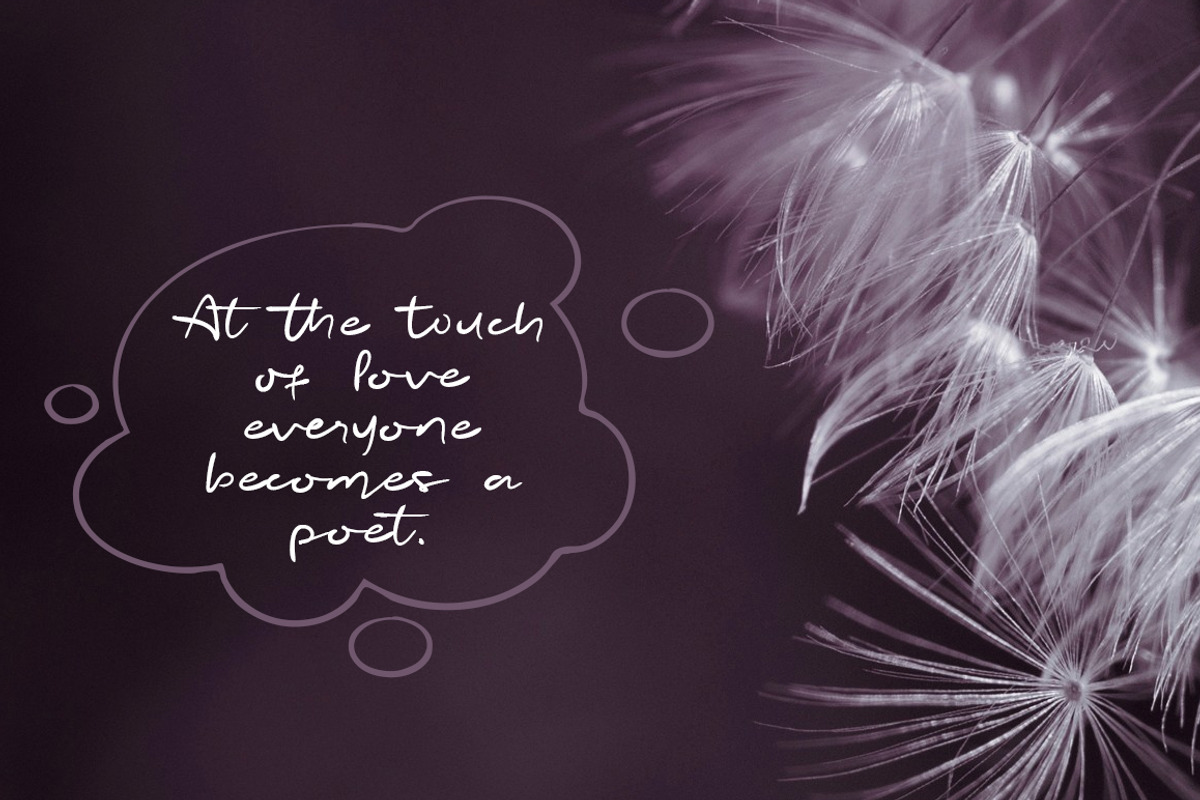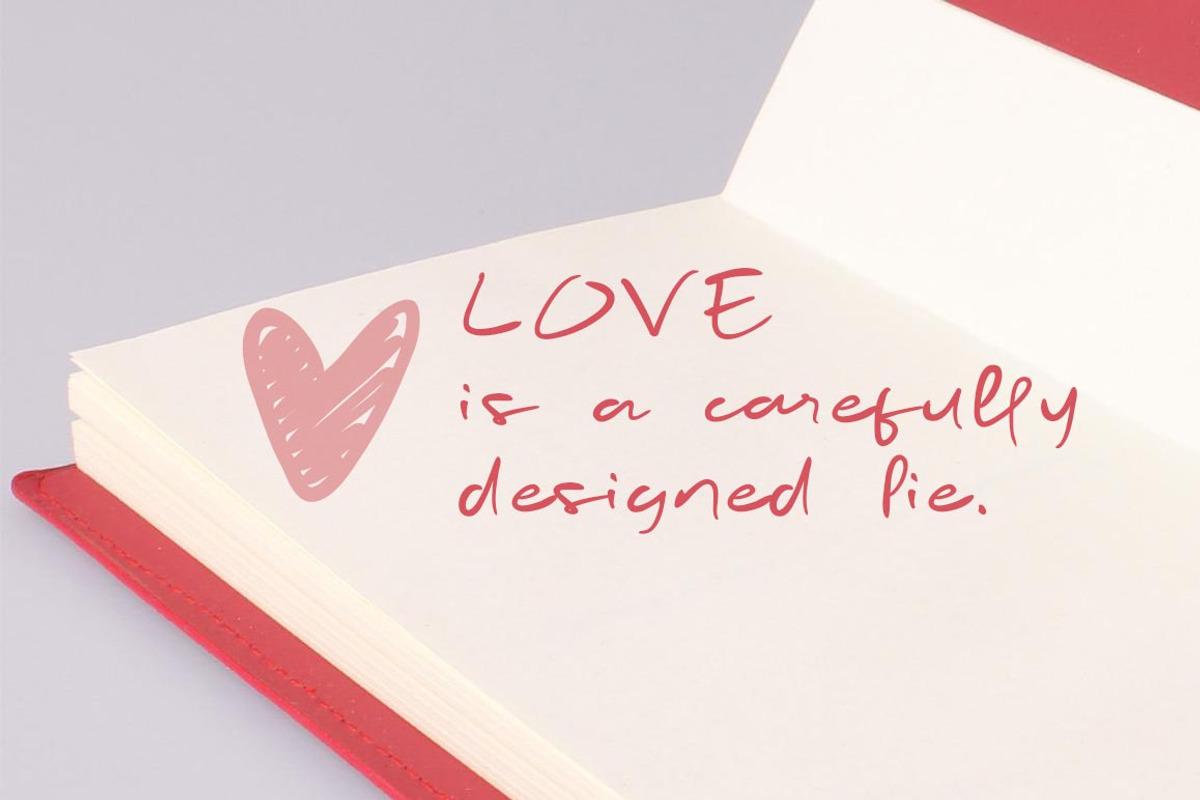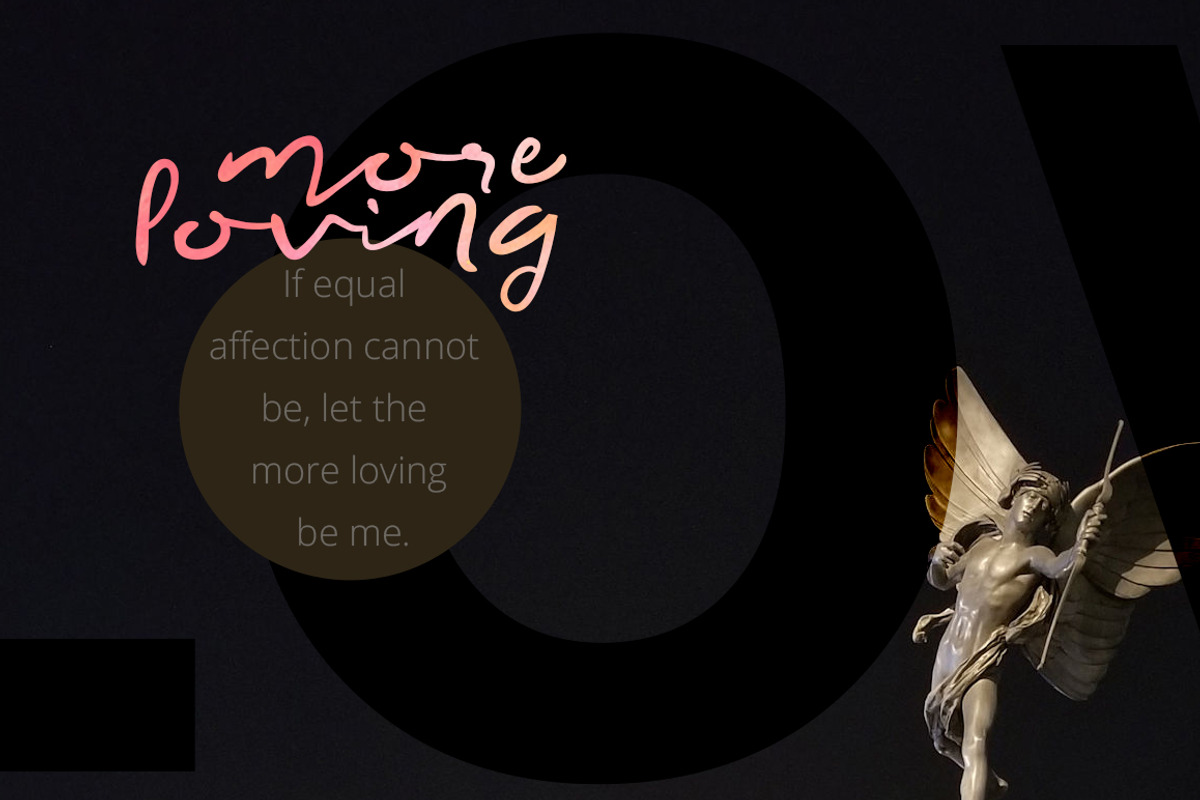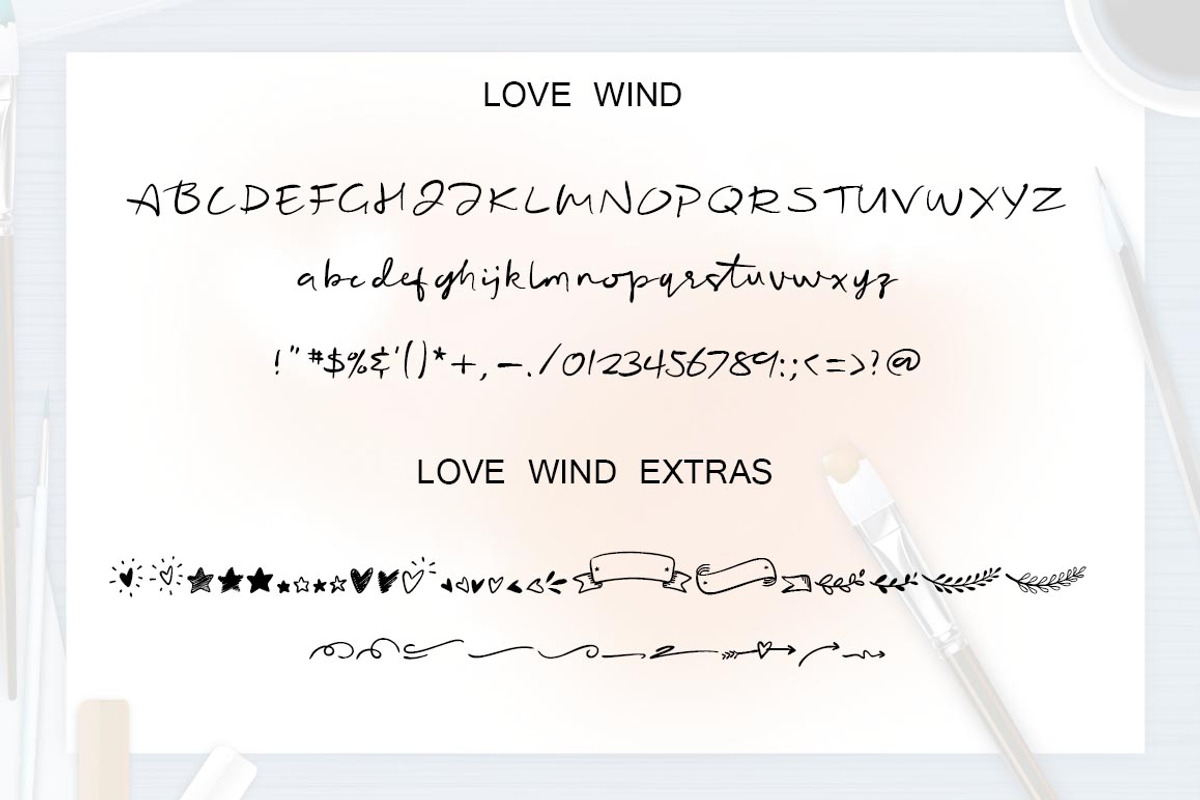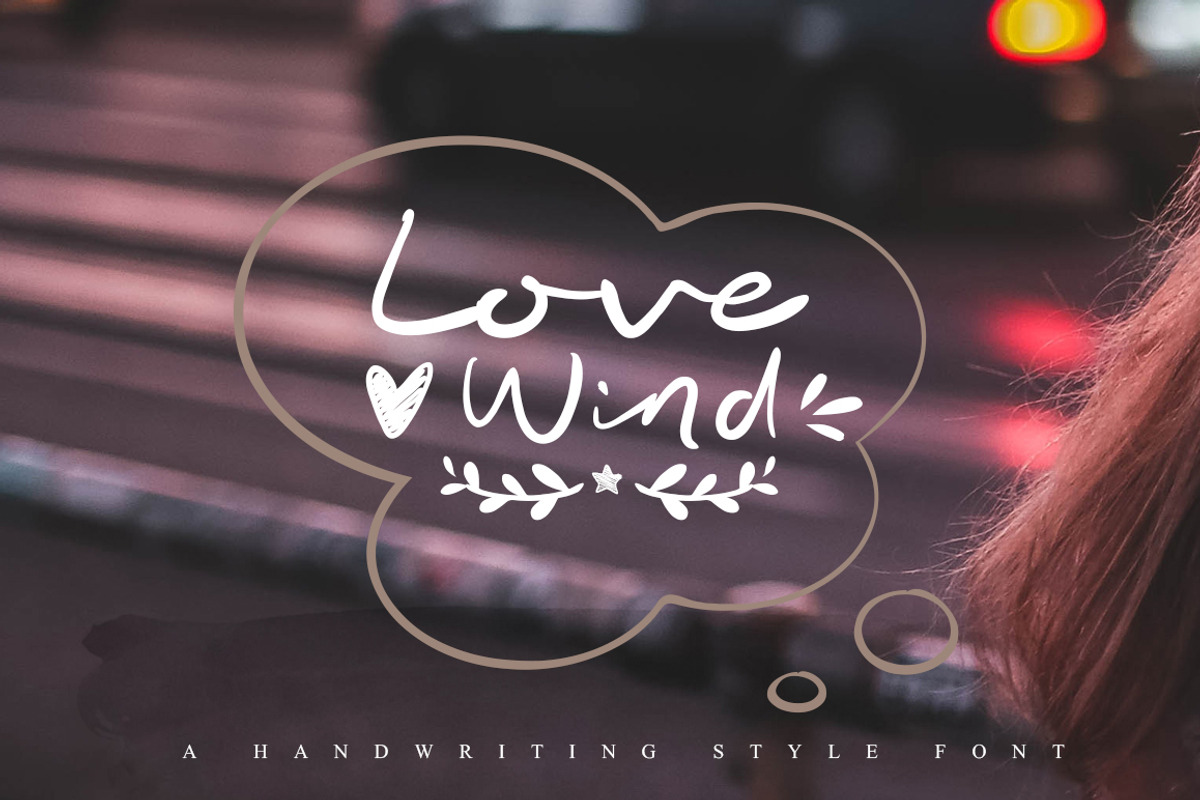
Love Wind font
Love Wind is a set of handwritten style font, It is smooth, free, smart, It include dozens of ligature glyph, the combination of a variety of changes. And some love symbols.
Love Wind font by alphadesign fits naturally into Branding, posters, packaging, typography.